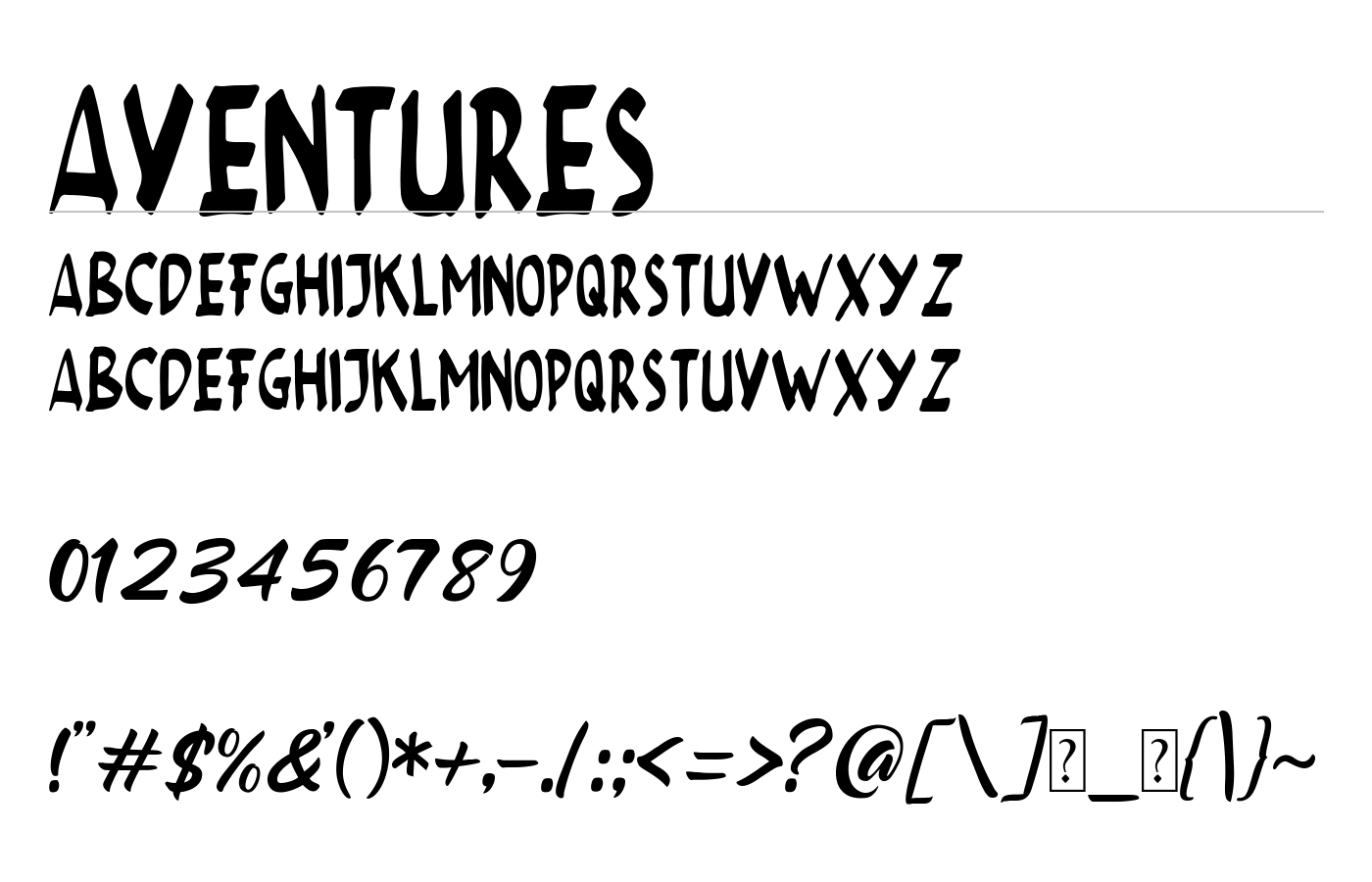
AVENTURES is a playful and adventurous sans serif font with a hand-drawn feel, featuring irregular, slightly rough strokes that add character and energy. Its tall, narrow letterforms with subtle contrasts and casual curves make it perfect for creative projects, children's designs, or anything that seeks a fun, informal vibe. This font shines in headlines, posters, and branding where a distinct and lively personality is desired.
AVENTURES Font
About AVENTURES Font
| Designer | Bories Bechker |